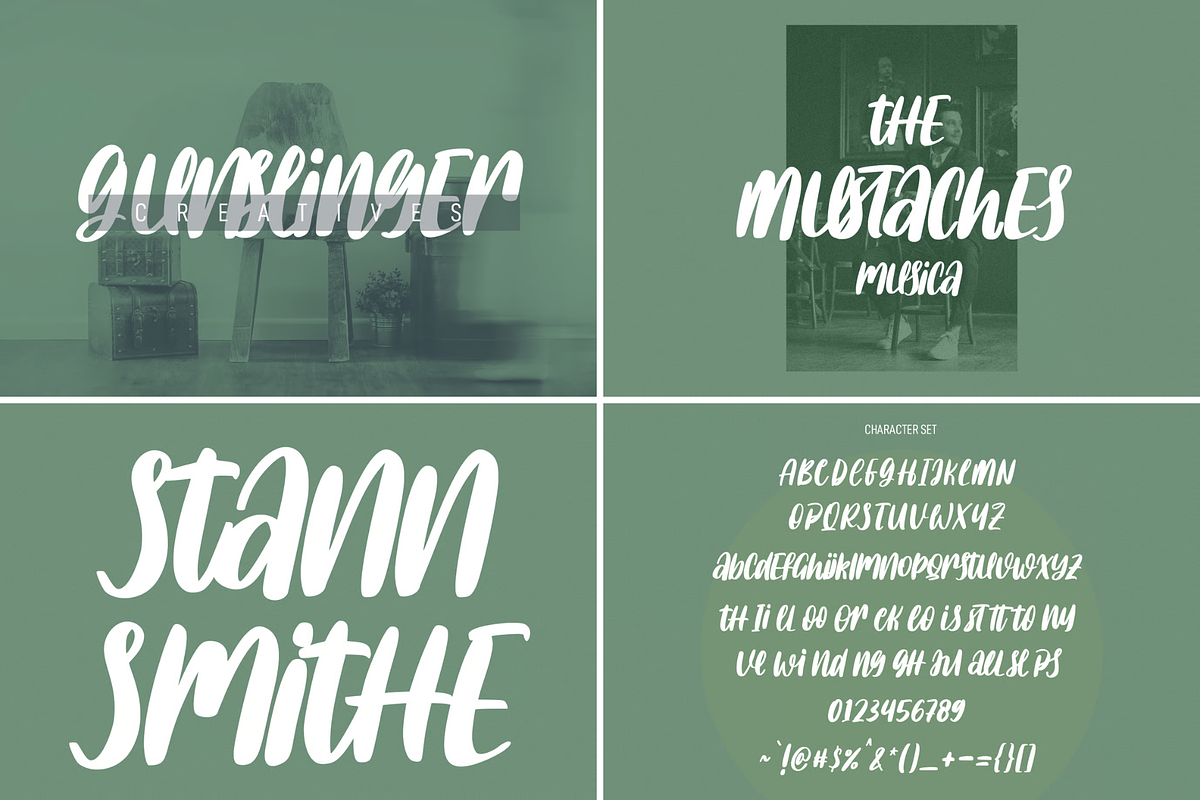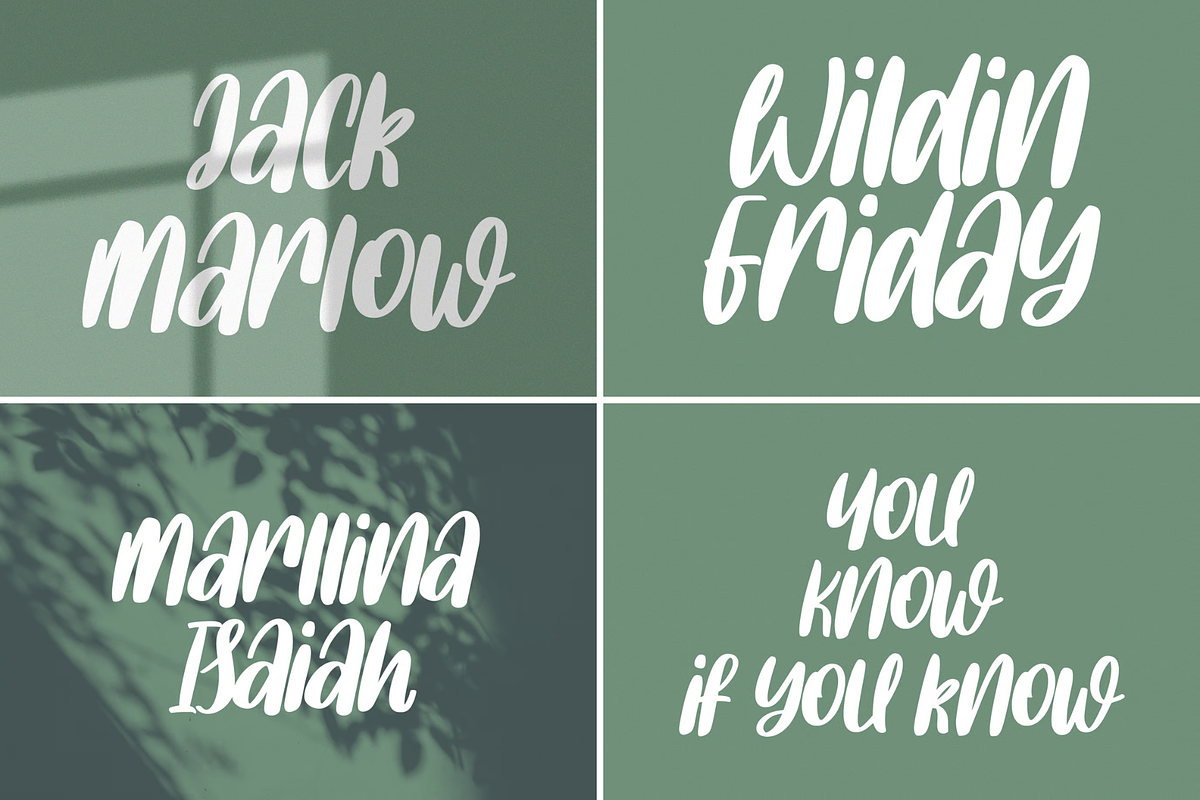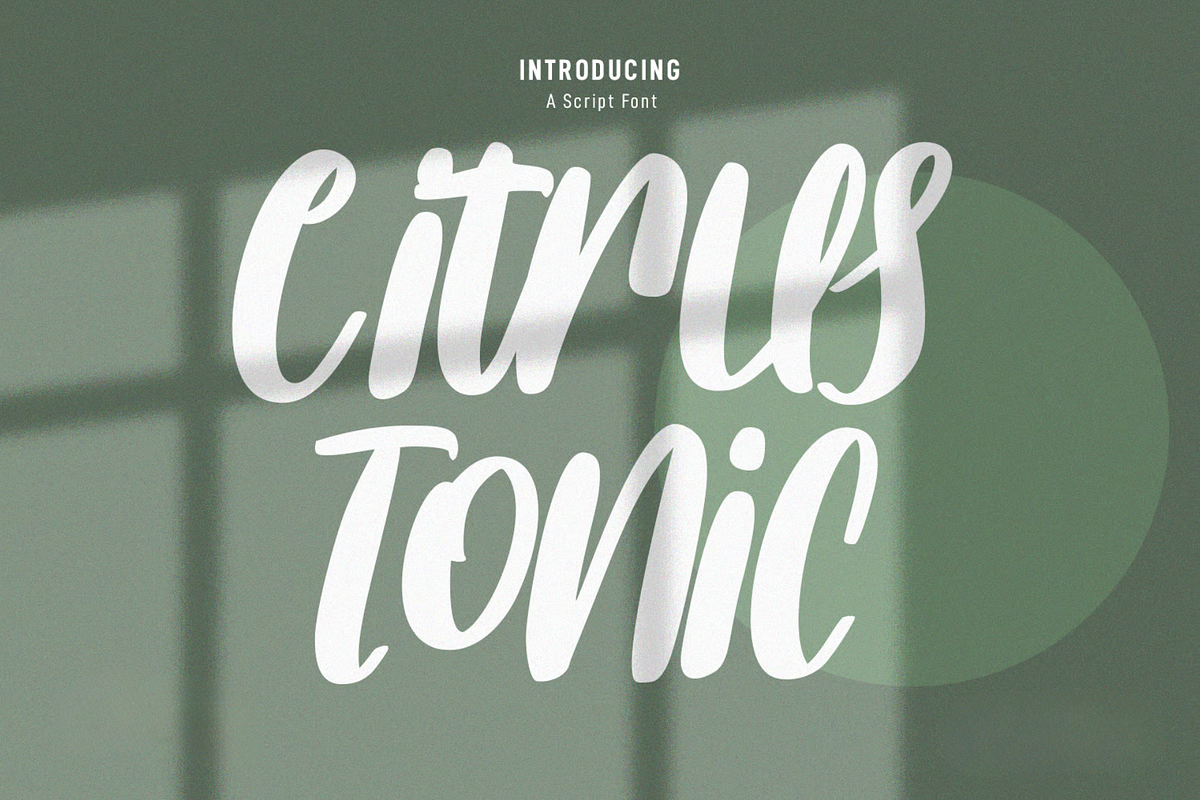
Citrus Tonic Handwritten Script Font
Citrus Tonic is a modern signature script font. With slanted contrast stroke, fun character. To give you an extra creative work. Citrus Tonic font support multilingual more than 100+ language. This font is good for logo design, Social media, Movie Titles, Books Titles, a short text even a long text letter and good for your secondary text font with sans or serif. Make a stunning work with Citrus Tonic font.